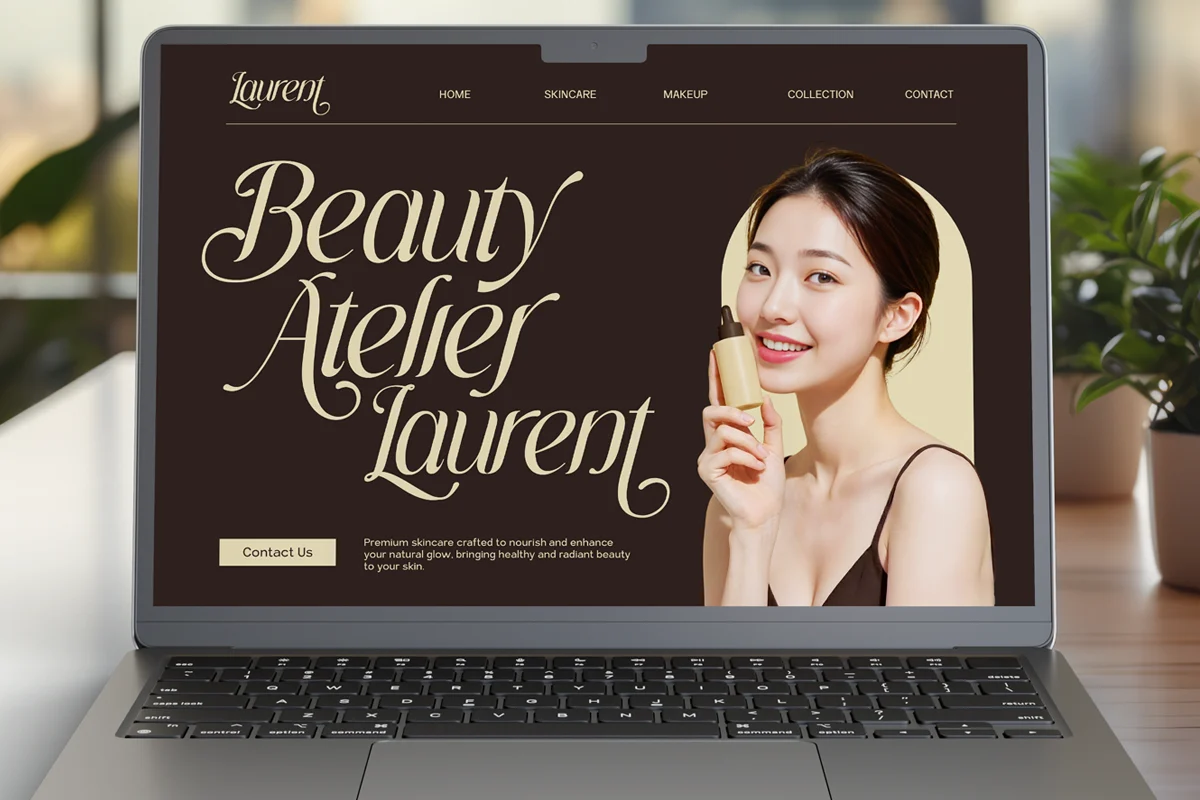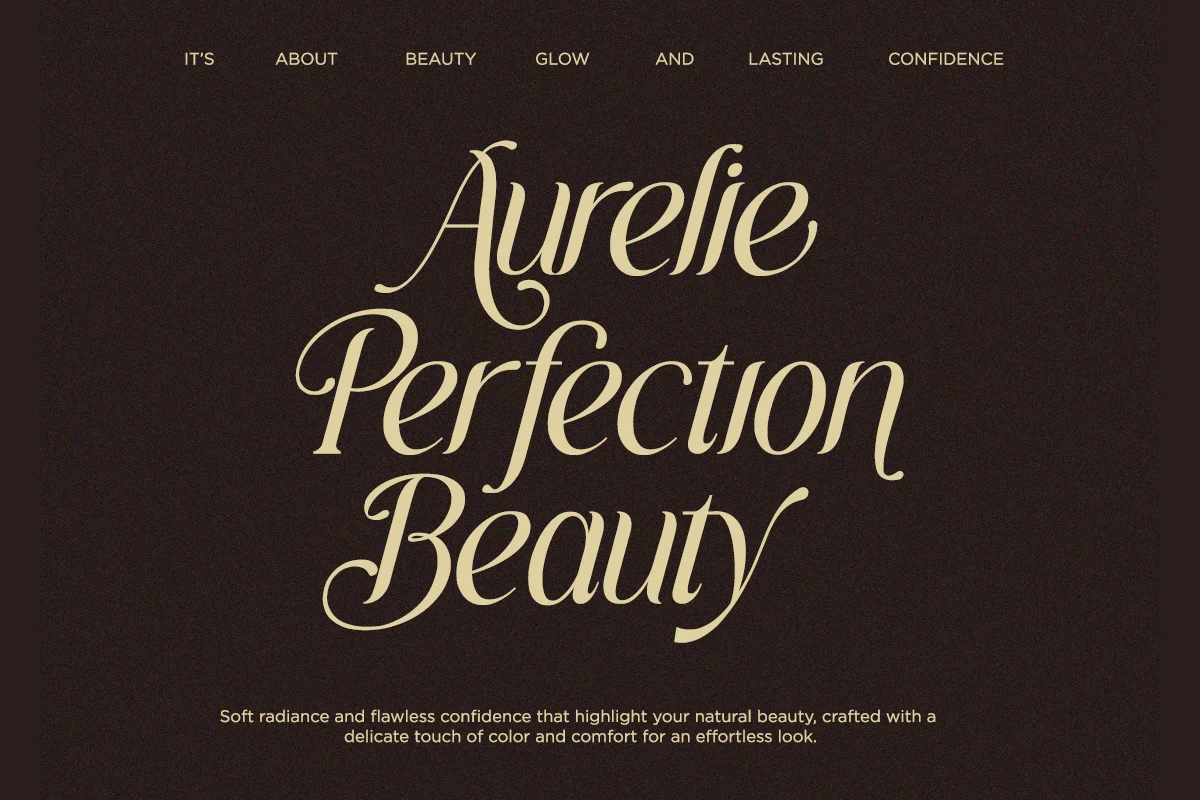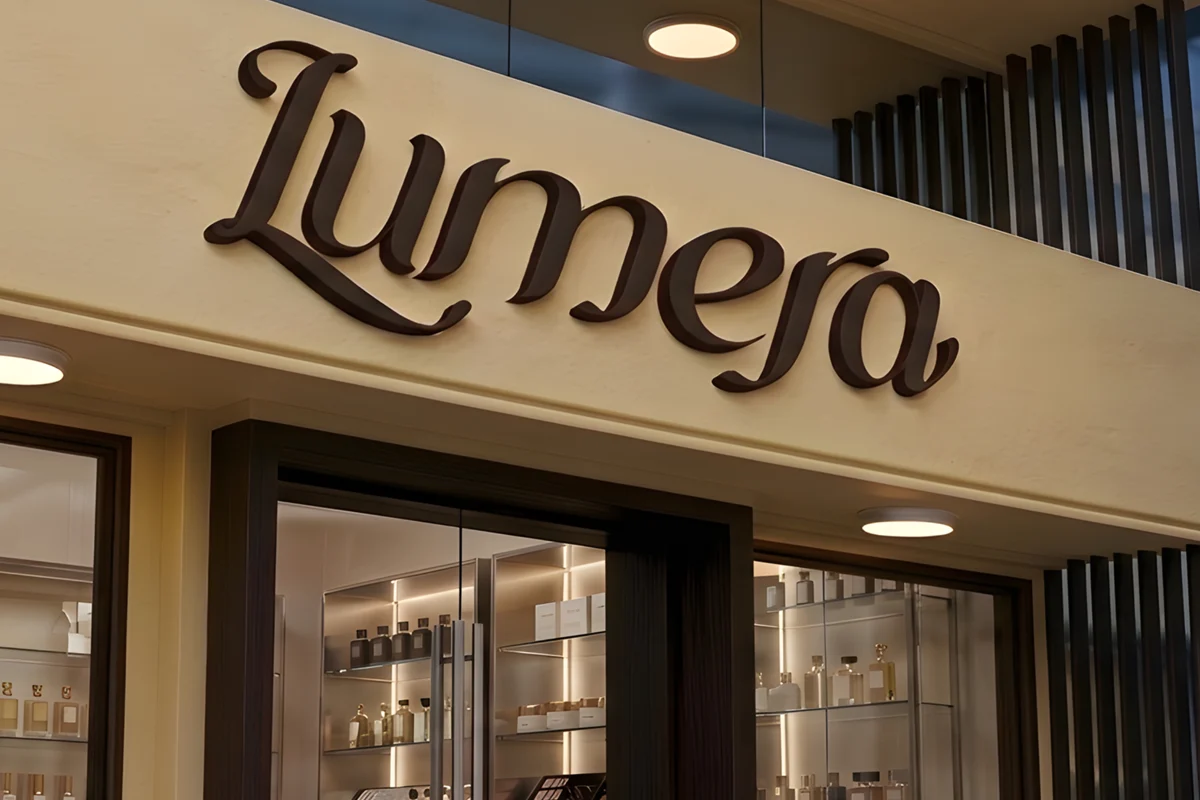
Grache Hustle – Aesthetic Serif Font
Grache Hustle is a stunning beauty aesthetic serif font that blends soft femininity with luxurious elegance. Designed with graceful curves and refined details, this typeface delivers a sophisticated and romantic feel, making it perfect for high-end visual storytelling. Every letterform is crafted to create a sense of charm, beauty, and timeless appeal.
This font shines in fashion branding, beauty product packaging, editorial layouts, wedding invitations, and luxury logos. Whether you're designing for cosmetics, lifestyle brands, or elegant social media content, Grache Hustle brings a premium and artistic touch that elevates your design instantly.
With its stylish alternates and flowing serif structure, Grache Hustle offers versatility and uniqueness. It’s not just a font—it’s a statement of elegance, making your projects feel exclusive, graceful, and visually captivating.
- Ligatures and alternates